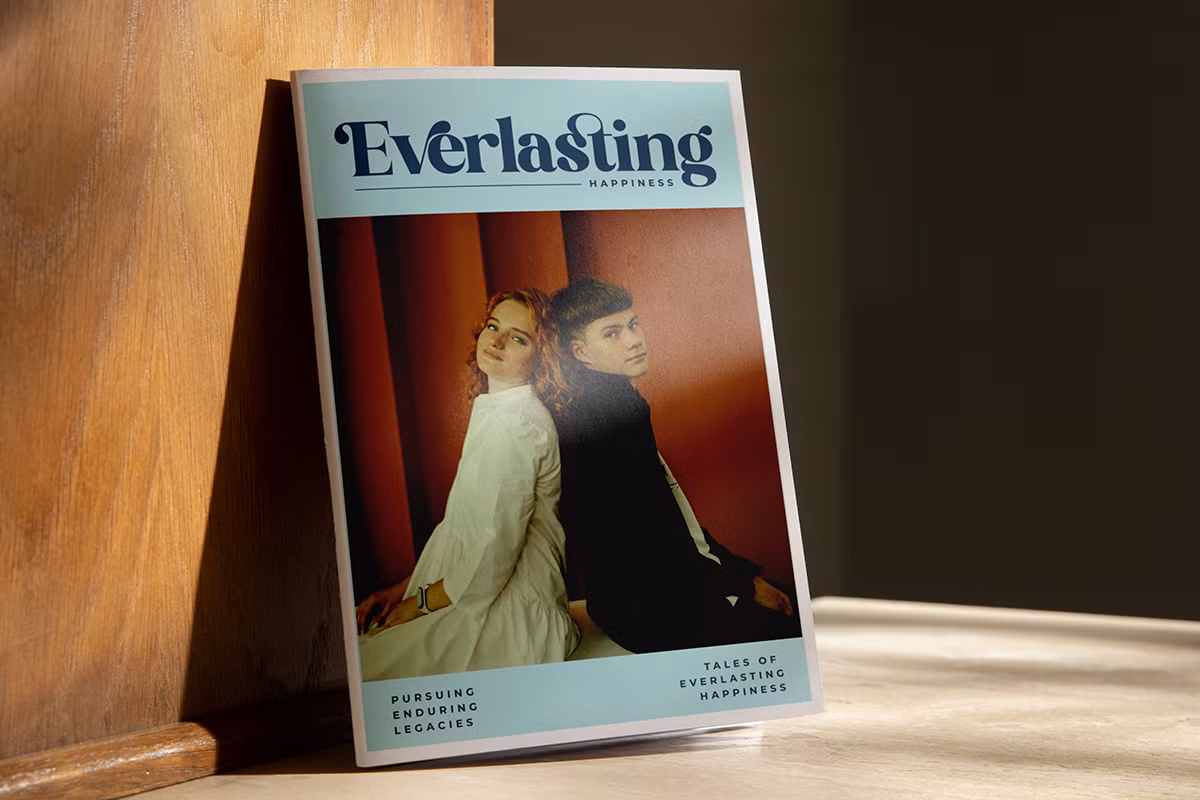
Kind Avenue: Versatile Retro Font with Multilingual Support
Introduction to Kind Avenue
Kind Avenue is a really cool font that mixes old and new styles together. It’s got a classic look with serifs, which makes it perfect for lots of different writing projects. You can use it to create something that feels nostalgic or something that’s totally modern and fresh. The best part is, Kind Avenue is super versatile – it comes with lots of different variations and special connections between letters, so you can experiment and add your own unique touch to your work.
This means you can make your projects stand out and look really special. Whether you’re working on a big design project or just want to add some flair to your writing, Kind Avenue is a great choice. It’s easy to use and can help you create something that’s both stylish and effective.
Design Style of Kind Avenue
Kind Avenue has a really classic look that’s also kind of retro. It’s got a warm feel to it, which makes it easy to look at and it reminds you of old-school typography. The way it’s designed, with a serif that’s not too fancy, gives it a timeless feel that can make any text look great.
But it’s not just about looking old-fashioned – it’s also got some modern touches that make it really versatile. For example, it’s got some cool ligatures that let you combine letters in creative ways, which can add a lot of visual interest to your designs and make them flow better. This means you can use Kind Avenue to create some really unique and eye-catching typography that’s still easy to read and understand.
You can play around with Kind Avenue in different weights and styles, which is really handy because it means the font can fit in with the overall feel of what you’re working on. This makes it a great choice for lots of different things, like creating a brand identity, making ads, designing invitations, or laying out editorial content.
Character Sets and Multilingual Support
What really sets Kind Avenue apart is how well it works with lots of different languages. This makes it perfect for projects that involve people from all around the world. The font has a huge collection of characters, including all sorts of accents and special symbols.
For example, you’ve got letters like À, Á, Â, Ã, and Ä, as well as Å, and that’s not all – you also get characters like Ç and Ć, and many more like È, É, Ê, and Ë. This means you can write text that’s not just clear, but also really expressive and welcoming to everyone, no matter where they’re from.
Kind Avenue is special because it has lots of extra characters and ligatures. This means it works really well with many different languages. For designers who need to use multiple languages, this is a big help.
Use Cases for Kind Avenue
Kind Avenue is really good at adapting to different situations, which makes it perfect for lots of different uses. Let’s take a look at a few examples:
- Branding: The retro aesthetic combined with modern flair makes Kind Avenue perfect for logos, packaging, and branding materials that seek to evoke nostalgia while appealing to contemporary consumers.
- Editorial Designs: Kind Avenue can give your magazines, brochures, and newsletters a classy look, making your text-heavy designs more stylish and unique.
- Event Invitations: The font’s charm is ideal for invitations to weddings, parties, or any special events, making the text stand out while maintaining readability.
- Posters and Ads: It helps create ads that grab attention by balancing old-school feel with modern design ideas.
Pairing Suggestions for Kind Avenue
So, you want to know how to pair fonts with Kind Avenue. Well, its special style can actually work really well with lots of different typefaces. Let’s take a look at some options that might go nicely with it.
- Sans-serif Fonts: Pair Kind Avenue with clean sans-serif fonts like Helvetica or Open Sans to create a modern contrast.
- Display Fonts: To add some personality, try pairing Kind Avenue with a bold script or a fun sans-serif for headlines or titles.
- Minimalist Fonts: Using a minimalist typeface like Arial or Lato can provide a clean backdrop for Kind Avenue, allowing it to shine.
Experimenting with different pairings can yield unique results, enhancing the overall impact of your typography.
Whether you’re a designer, a branding expert, or just someone who likes to be creative, Kind Avenue is a great choice that can take your work to the next level. It’s a versatile font that can add a special touch to your designs, and its uniqueness is what makes it so special.
So, if you want to add some flair to your projects, Kind Avenue is definitely worth checking out – it can help you create something really amazing!